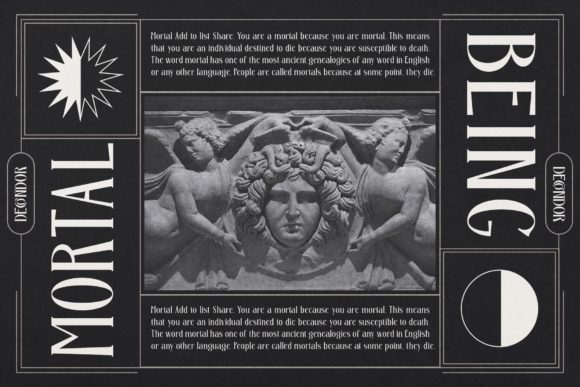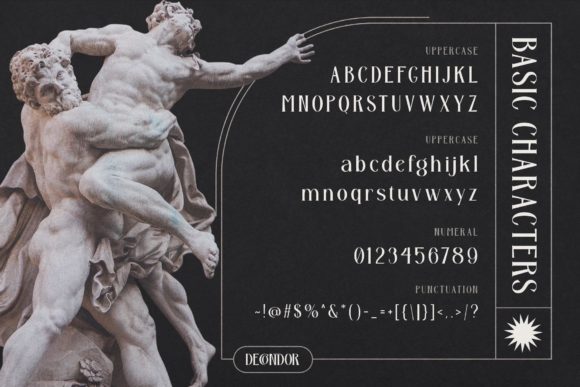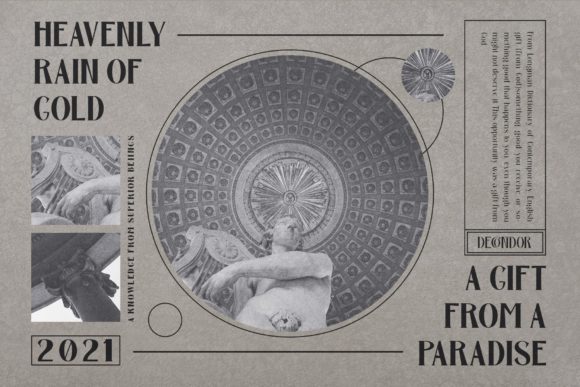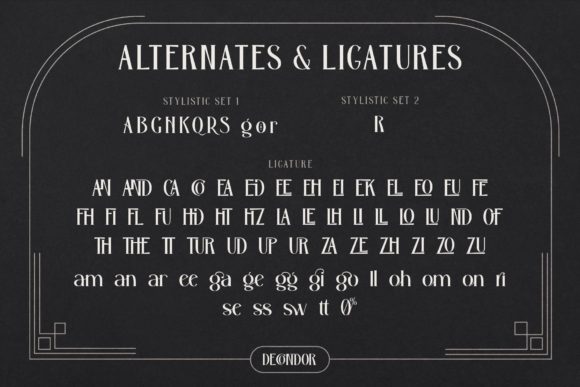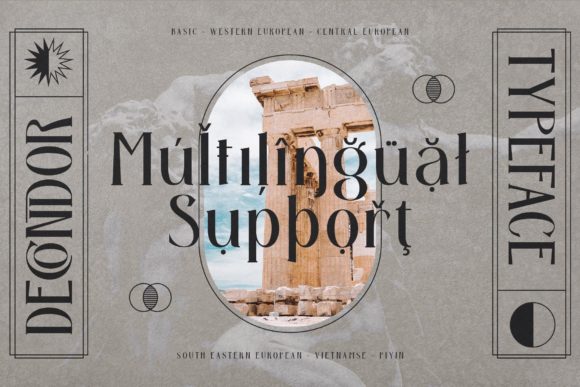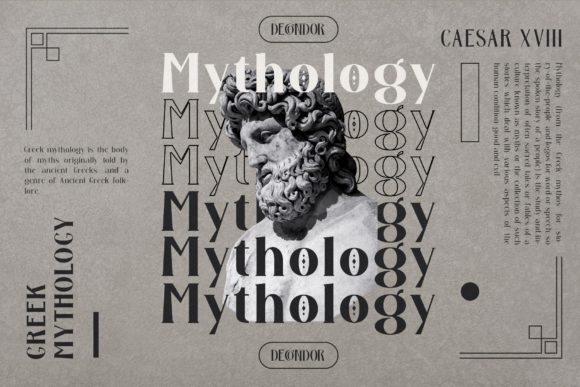
Introducing Decondor Font: Elevate Your Designs with Luxury and Sophistication
In the world of typography, a font can make or break a design project. For designers and crafters seeking to add a touch of elegance and refinement to their work, Decondor Font is an exceptional choice. This modern and sophisticated serif font family is designed to bring a classy and charming accent to any design, making it perfect for fashion-related items, jewelry designs, and other exquisite ideas.
The Decondor Font Difference
Decondor Font stands out from the crowd with its luxurious and simple characters, carefully crafted to convey a sense of high-end sophistication. Its sleek and refined lines make it an ideal choice for designers looking to create stunning visual content that exudes elegance and poise. Whether you’re working on a fashion brand, a jewelry design, or any other project that requires a touch of luxury, Decondor Font is the perfect companion.
One of the key features that sets Decondor Font apart is its PUA (Private Use Area) encoding. This means that designers can access all the glyphs and swashes with ease, giving them complete creative control over their project. With PUA encoding, you can effortlessly navigate the font’s extensive character set, including ligatures, alternates, and ornaments, to create truly unique and eye-catching designs.
Perfect for Fashion and Jewelry Designs
Decondor Font is specifically designed to excel in fashion-related projects, such as:
- Fashion branding and logos
- Clothing and accessory designs
- Runway show invitations and programs
- Fashion magazine layouts and headlines
Its luxurious and sophisticated feel also makes it an excellent choice for jewelry designs, including:
- Jewelry packaging and labels
- Website headers and titles
Beyond Fashion and Jewelry: Endless Creative Possibilities
While Decondor Font excels in fashion and jewelry designs, its versatility means it can be used in a wide range of creative projects, such as:
- Luxury product branding and packaging
- High-end event promotions and signage
- Magazine and newspaper layouts
Why Choose Decondor Font?
When it comes to selecting a font for your design project, there are many options available. So, why choose Decondor Font? Here are just a few compelling reasons:
- Unique and distinctive design: Decondor Font boasts a one-of-a-kind design that will set your project apart from the competition.
- High-quality and versatile: With its wide range of characters and swashes, Decondor Font is an incredibly versatile choice that can be used in various design contexts.
- Ease of use: Thanks to its PUA encoding, accessing and using Decondor Font’s extensive character set is effortless and intuitive.
In conclusion, Decondor Font is an exceptional serif font family that offers designers and crafters a luxurious and sophisticated typographic solution. Its modern and refined design, combined with its PUA encoding, makes it an ideal choice for fashion-related items, jewelry designs, and a wide range of other creative projects. With Decondor Font, you can elevate your designs to new heights of elegance and sophistication, ensuring your work stands out in a crowded design landscape.